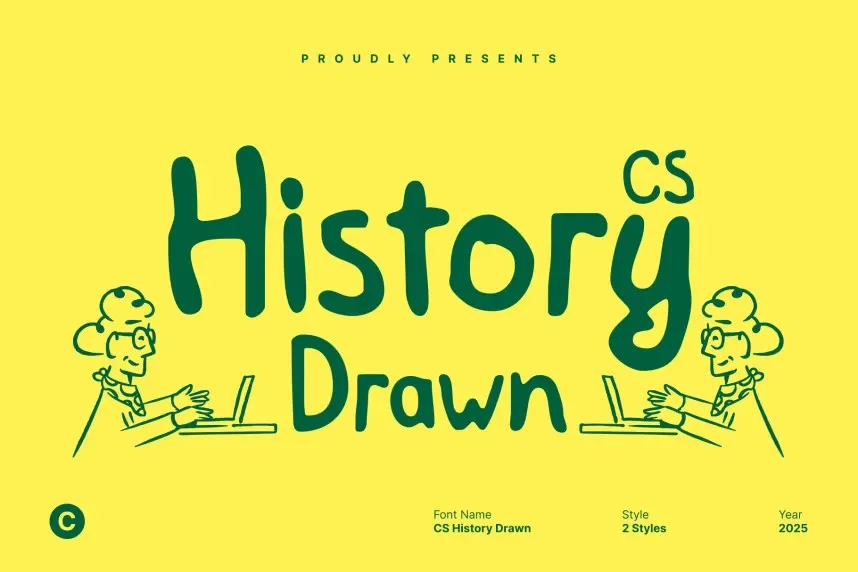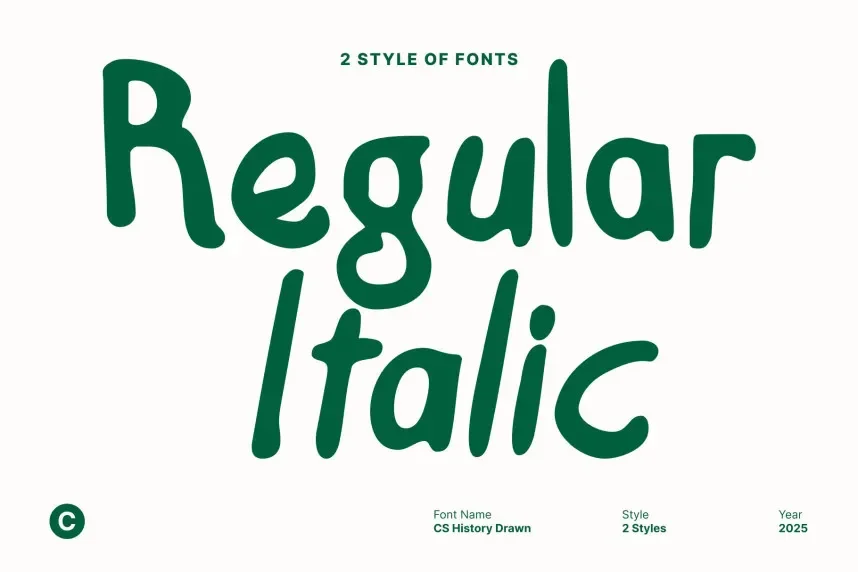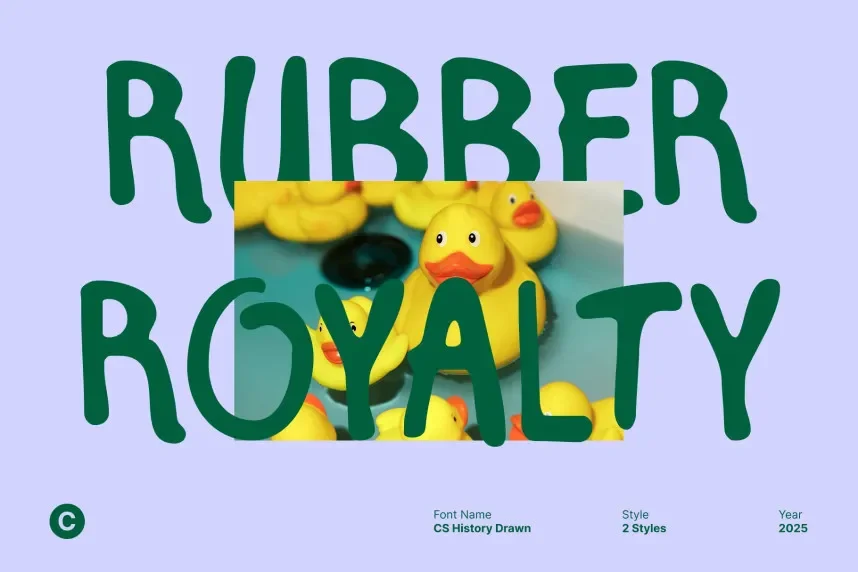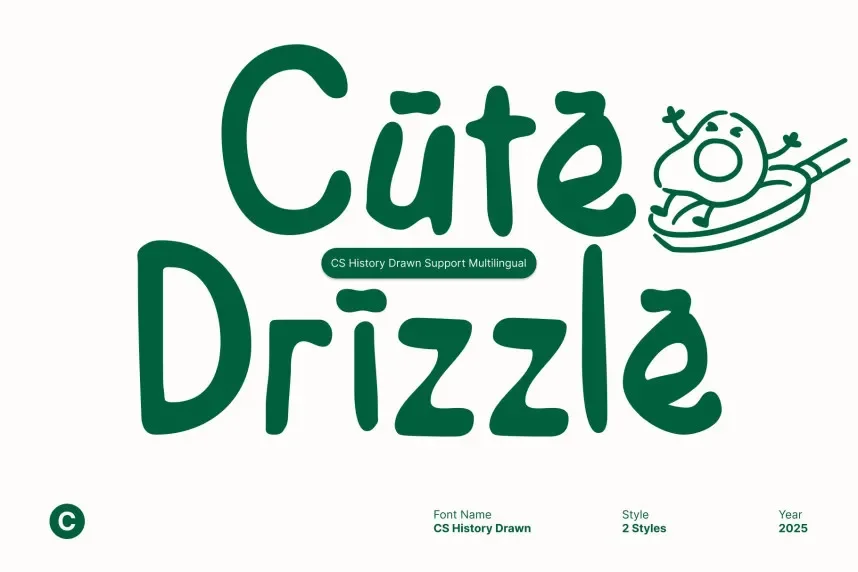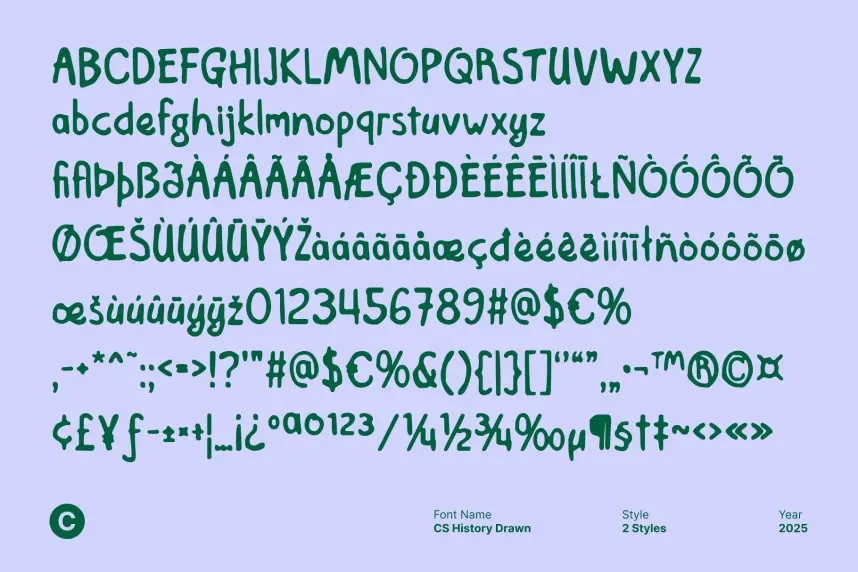
CS History Drawn Font addresses the need for a vintage-inspired, hand-drawn font that captures the essence of old-school design while remaining highly readable. It’s perfect for retro and nostalgic projects.
CS History is a display font with rough, uneven edges and bold, textured letterforms. Its distressed design evokes a sense of history, making it suitable for vintage-themed projects that require strong visual impact.